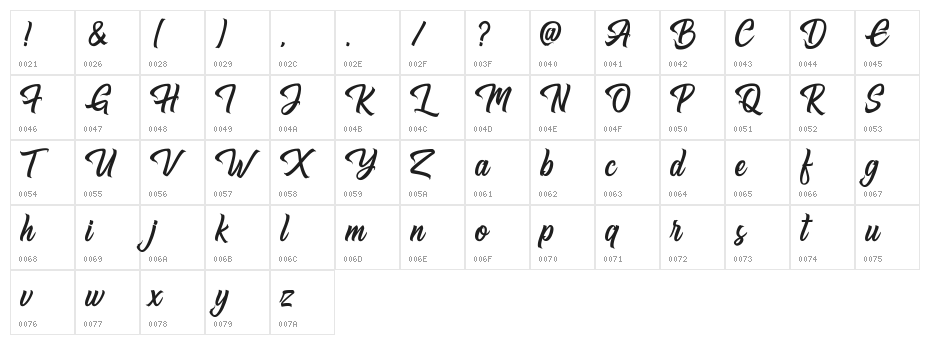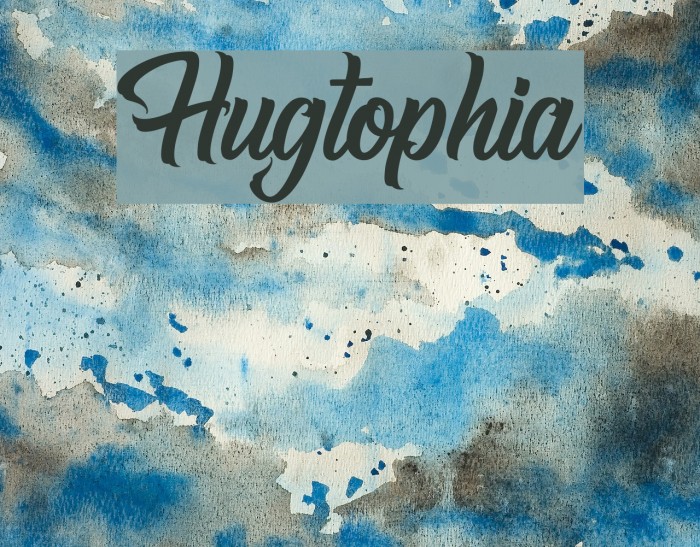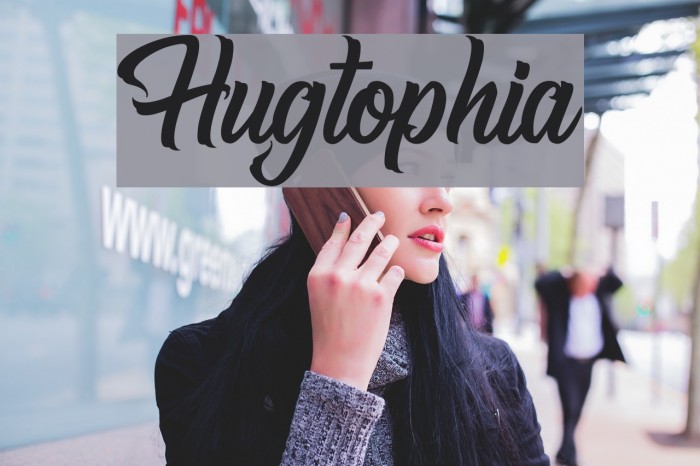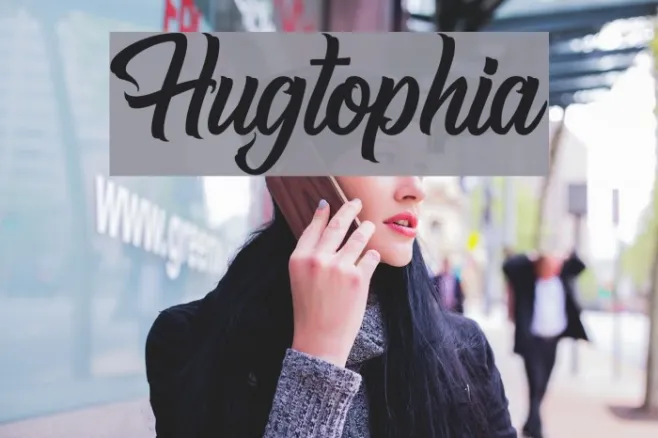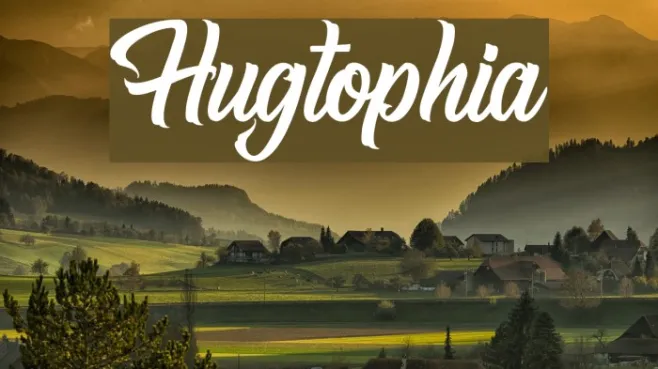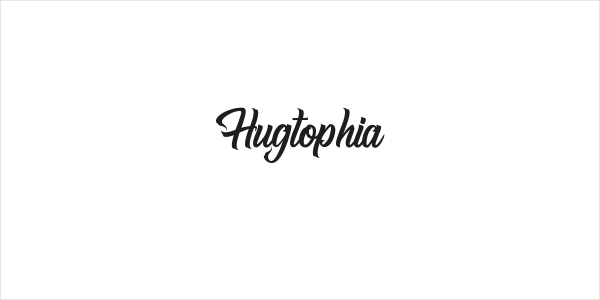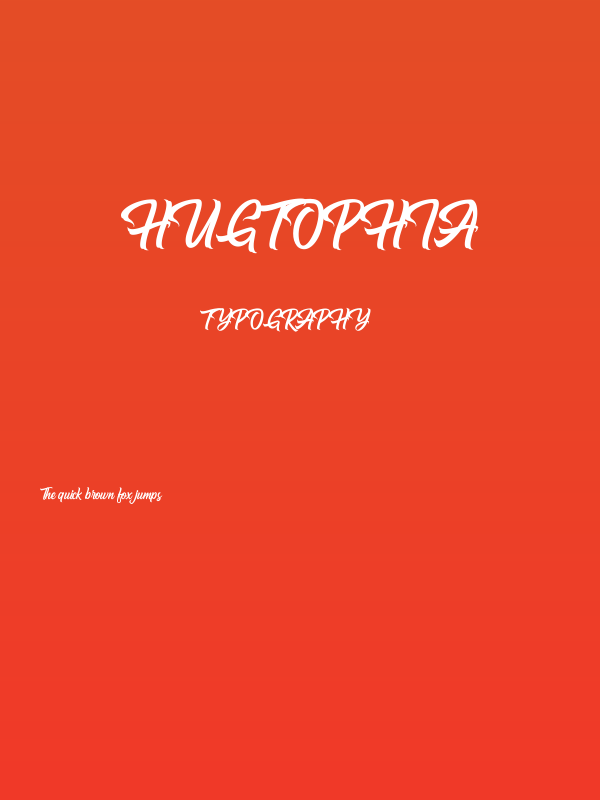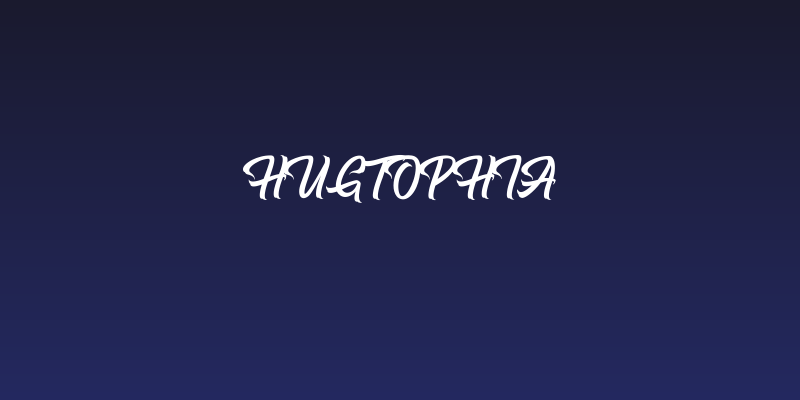
Hugtophia Font
Hugtophia Description
This font features a bold and expressive script style, characterized by its flowing, cursive letterforms that convey a sense of elegance and dynamism. The uppercase letters are particularly ornate, with sweeping lines and curves that create a sense of movement. The lowercase letters maintain a consistent style, with smooth connections between characters, enhancing readability while retaining a decorative flair. The numbers and special characters are designed to match the overall aesthetic, providing a cohesive look across all text elements. This font is ideal for projects that require a personal touch or a sense of sophistication.